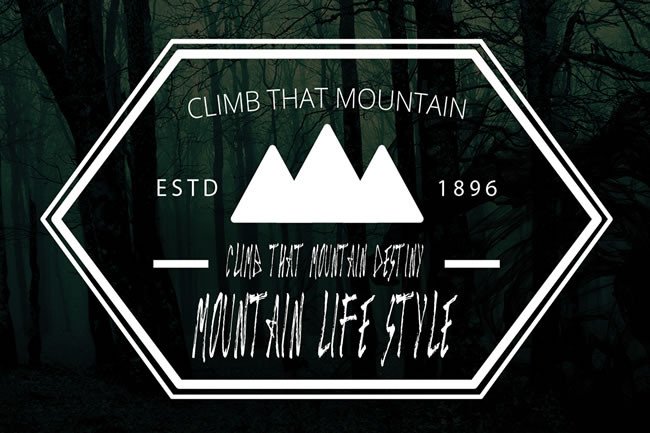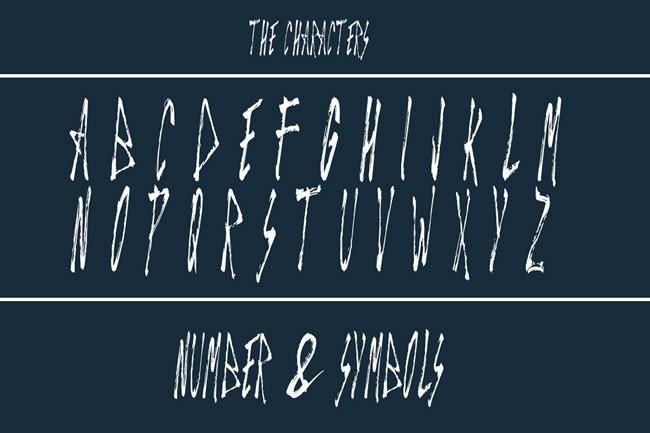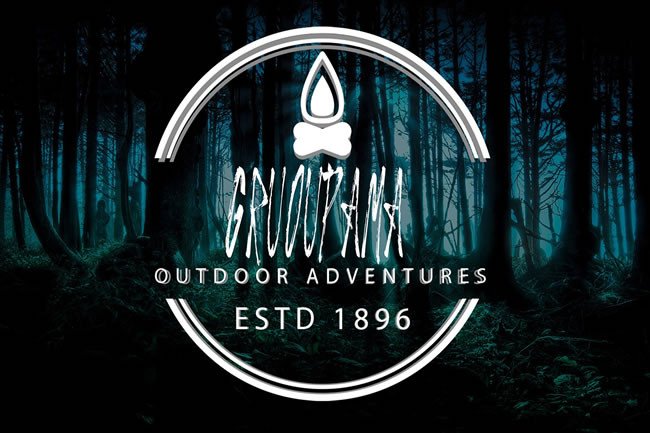
Unleash Your Creativity with Alone Font: The Ultimate Typeface for Hardcore Vibe and Retro Feel
In the world of typography, there exist fonts that are mere words on a page, and then there are those that evoke emotions, convey personalities, and breathe life into designs. Alone Font is one such remarkable typeface that proves its usefulness from time to time, bringing forth a hardcore vibe, a retro feel, and an essence of chaos that can elevate your creative projects to new heights.
The Versatility of Alone Font
Alone Font is not just another addition to your font library; it’s a versatile tool that can be used for a myriad of purposes. Whether you’re looking to craft stunning headings, signatures, logos, or even design merchandise like t-shirts, letterheads, signage’s, posters, badges, and more, this typeface is up to the task. Its unique characteristics make it suitable for various design needs, allowing your creativity to splatter in ways you never thought possible.
Embracing the Hardcore Vibe and Retro Feel
At its core, Alone Font embodies a hardcore vibe that’s reminiscent of the raw energy and bold statements of the past. Its design elements harken back to a retro feel that’s both nostalgic and refreshingly bold. This blend of ruggedness and vintage charm can add depth and personality to your designs, setting them apart in a sea of generic typography.
Bringing Chaos and Creativity to Your Designs
The beauty of Alone Font lies in its ability to bring a sense of chaos and unpredictability to your artworks. In a world where conformity is often the norm, this typeface offers a refreshing deviation, allowing designers and crafters to push boundaries and explore new creative territories. With Alone Font, the possibilities are endless, and the only limit is your imagination.
Practical Applications of Alone Font
So, how can you harness the power of Alone Font in your projects? Here are a few ideas to get you started:
- Headings and Titles: Use Alone Font to create eye-catching headings and titles that demand attention. Its bold and rugged design makes it perfect for making a statement.
- Logos and Branding: The unique character of Alone Font can help your brand stand out. It’s ideal for creating memorable logos and brand identities that reflect a bold and adventurous personality.
- Merchandise and Apparel: Design stunning t-shirts, hoodies, and other merchandise with Alone Font. Its retro and hardcore vibe will surely appeal to those who appreciate a bold aesthetic.
- Posters and Flyers: Whether you’re promoting an event, a product, or a cause, Alone Font can help you create posters and flyers that capture attention and convey your message effectively.
Why Choose Alone Font?
In a crowded marketplace of fonts and typefaces, Alone Font stands out for several reasons:
- Uniqueness: Its distinctive design ensures that your projects will have a unique look and feel.
- Versatility: Alone Font can be used across a wide range of projects, from digital designs to print materials.
- Emotional Connection: It has the power to evoke emotions and create a connection with your audience, making your designs more impactful.
| Font Name | Alone Font |
| Author | Only The Originals |
Alone Font is more than just a typeface; it’s a creative tool that can transform your designs, bring your ideas to life, and connect with your audience on a deeper level. Its blend of hardcore vibe, retro feel, and chaotic charm makes it an invaluable asset for designers and crafters looking to push the boundaries of their creativity. So, why settle for ordinary when you can make a statement with Alone Font? Unleash your creativity, splatter your imagination, and see where this incredible typeface takes you.